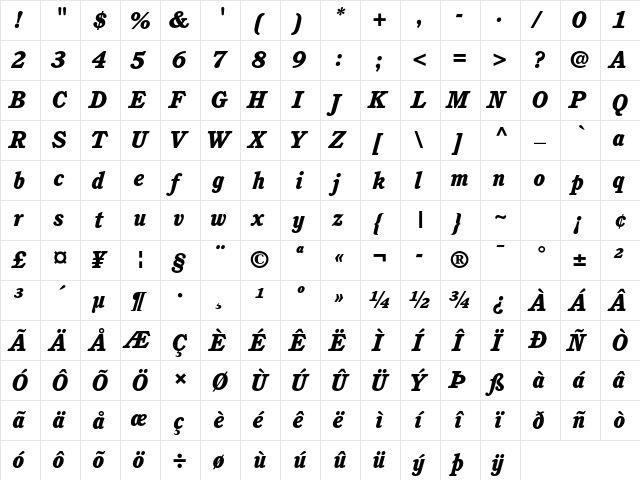
ITC Cushing Std Heavy Italic
| Designer | Vincent Pacella |
Design Context for ITC Cushing Std Typeface
ITC Cushing Std takes a measured approach to typography — its balanced proportions and neutral character make it a reliable workhorse for both digital and print work. Its italic angle brings a sense of urgency and motion to the letterforms.
Pro Tip: Try ITC Cushing Std for annotation and caption copy alongside an upright companion — the contrast in angle creates a dynamic but ordered typographic system.